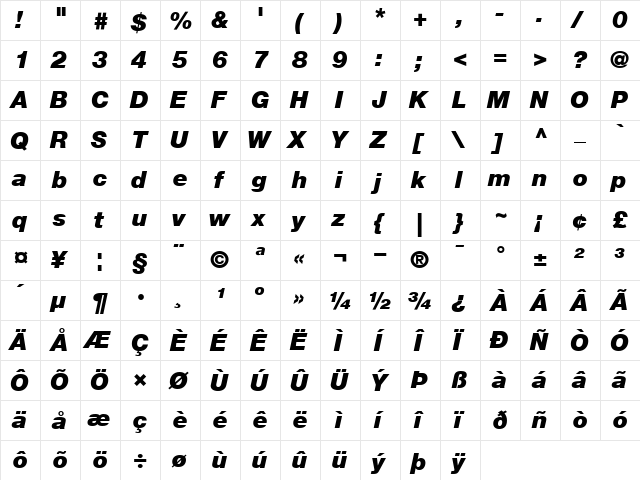
Helvetica96-Black BlackItalic Font Preview
Helvetica96-Black BlackItalic
Design Context for Helvetica96-Black Typeface
Helvetica96-Black takes a measured approach to typography — its balanced proportions and neutral character make it a reliable workhorse for both digital and print work. The dynamic lean of this cut emphasises speed and emphasis in any layout.
Pro Tip: Try Helvetica96-Black for annotation and caption copy alongside an upright companion — the contrast in angle creates a dynamic but ordered typographic system.